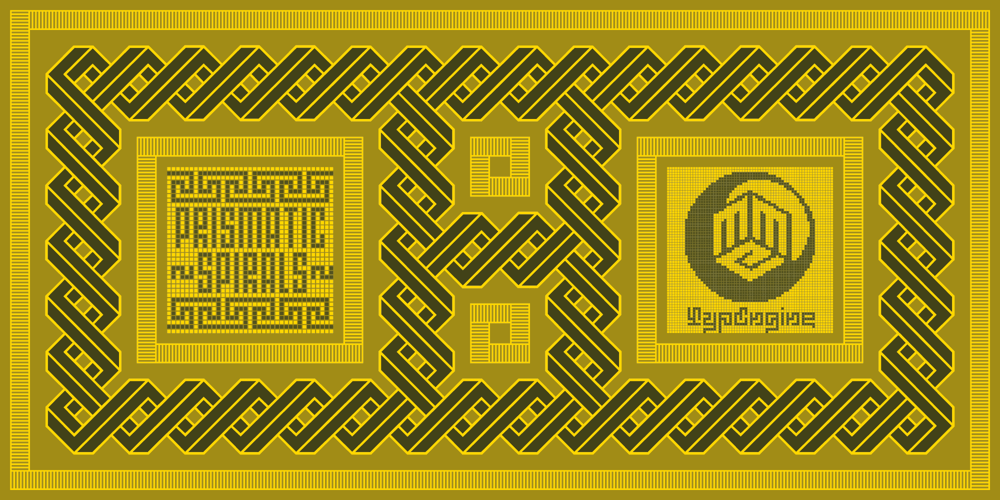
Prismatic Spirals
Prismatic Spirals font
Prismatic Spirals Font Family was designed by Dr. Andréground and published by MMC-TypEngine. Prismatic Spirals contains 8 styles and family package options. PRISMATIC SPIRALS FONT! The Prismatic Spirals Font is a decorative type-system and ‘Assembling Game’, itself. Settled in squared pieces modules or tiles, embedded by an unprecedented Intertwined Prismatic Sculptural Design, or Interlaced and Interlocked and Bars that may seem quite “impossible” to shape.Although it originated from the ‘Penrose Square’, it may not look totally as an Impossible Figures Type of Optical Illusions. More an “improbable” Aftermath in its Intertwined Design, that even static can seem like it is in motion as Kinetical Sculptures, or drive eyes into a kind of hypnosis.Prismatic Spirals has two related families, its “bold” braided version Prismatic Interlaces and the Pro version. While the default is simpler or easier to use, as all piece’s spin in same way, PRO provides a more complex intricate Design which requires typing alternating caps.Characters Instructions:Use the Map Font Reference PDF as a guide to learn the ’tiles’ position on the keyboard, then easily type and compose “puzzle” designs with this Decorative Type-Systems fonts!All alphanumeric keys are intuitive or easy to induce, you may easily memorize it all! Plus, instead often also need to consult it!*Find the Prismatic Spirals Font Map Reference Interactive PDF Here!(!) Is recommended to Print it to have the Reference in handy or open the PDF in second plan while composing a design to copy and paste, when consulting characters is required.Line-height Instructions:As a Tiles Type-System, the line gap space value is 0 or “invisible” so the user can compose a pattern descending line by line, however the line-height must be set to 100% or Normal.Notice that there’s an issue in some cases like MS Word for example, that the default line-height is set to 1,15, so is required to change to 1,0 plus and remove space after paragraph, in the Paragraph section.Only as a reminder, That’s no news for designers! Adobe Software’s requires to set body size and line-height values separately, in the character menu. So, both values must be equal, to remove the line gap.Usage Tips:Regarding Grammatical Spellcheck, since the text used for mapping the Design, won’t make any orthographical sense, it must be set to ignore or disabled, to be better appreciated without being underlined in red.Plus, a Tip for Exporting PNGs! After finishing a layered design with these Tiles Face in Adobe Illustrator (for example) a few line gap “glitches” can appear in PNGs. Take this final procedure: back-up works, expand selections and apply merge filter, it will perfectly remove it!Background History:As a curiosity, the first sketches of this Prismatic Knots and Spirals Designs dates from 2010, while starting developing hand-drawn Celtic Knots and Geometric Drawings in grid paper, while engaging in affairs of Typography, Sacred Geometry and the “Impossible Figures” genre…Since then, started doing the first modulation tests in 2013, and around 2018 got to unravel this “game” in square modules or tiles from grid work, plus idealized to turn to fonts… It took 13 years since the first sketches, discovering this design to complete the editions only in 2023.During the production some additional tiles were thought and summed to the set, which firstly had only the Borders Segments, Corners, Crossings, Trivets Connectors or T parts, Ends, plus Nets, afterwards completed with a set that integrates nets and borders plus diagonals.Usage Suggestions:This Decorative type-system enables the user to generate and ornate endless patterns, mosaics, motifs, borders, labyrinthine designs, etc. It may also seem just like a puzzle or game, but a much important tool when used for serious purposes such as composing Enigmatic Diagrams.Also, obviously the user can turn the Tiles to Real Text by Typing piece by piece, assembling the characters or modules. So, it can literarily reproduce or convert any Pixel Design or font in any languages as Kufic Arabic and further scripts to its Prismatic Spirals correspondent form.This Typeface was made to contemplate, be applied, and manufactured into Infinite Decorative Designs as Tiled Pavements, Tapestry, Frames, Prints, Fabrics, Wallpapers, Coloring Books, Cards, Games, Architectonic Frontispieces, Storefronts, Ornamental Design and Jewelry, for example.Further Words:Whenever an Architect picks this Decorative Type-System to Design pavements floors and walls, a printed instruction version of the layout with the ‘map’ font must be helpful and required to the masons that will lay the tiles, to place the pieces and its directions in the right way.Concerning tiles manufacturing or other Products, any of its repeated pieces was perfectly measured, so just rotating it in different directions, when sided by other pieces in any direction will fit perfectly without any mispatching errors. Plus, all fon